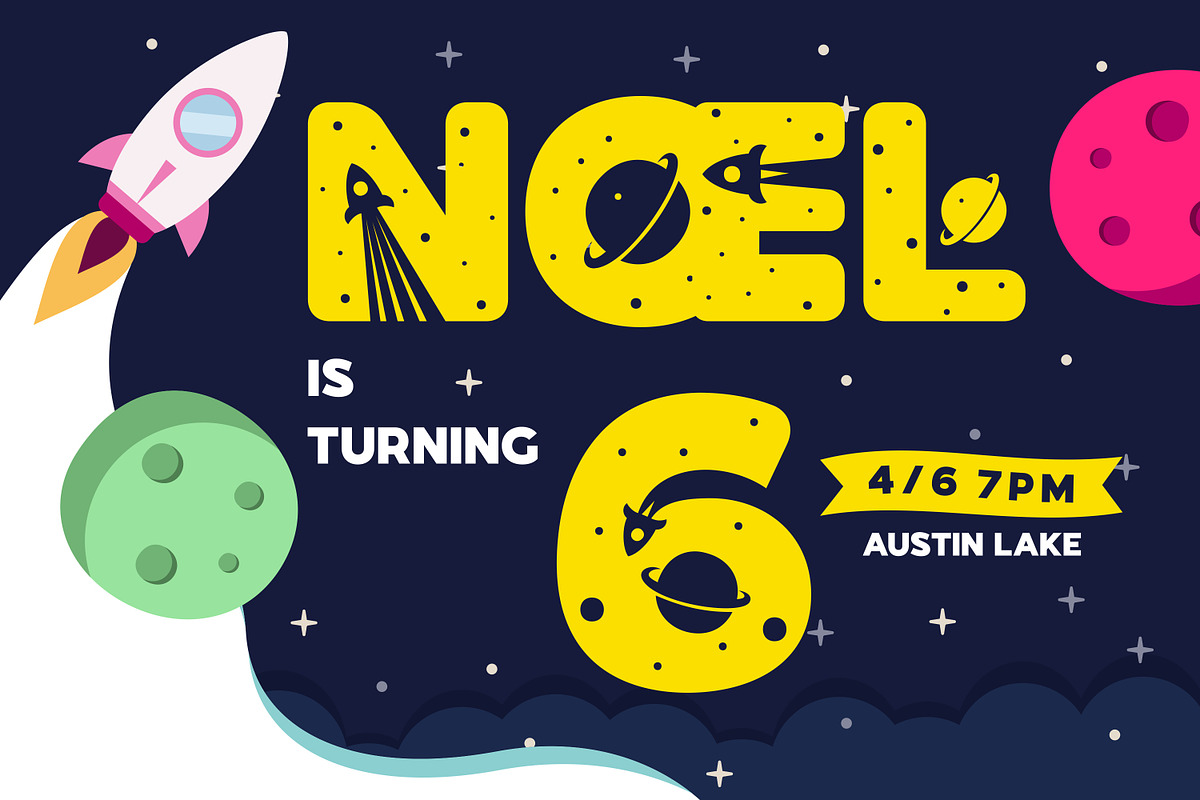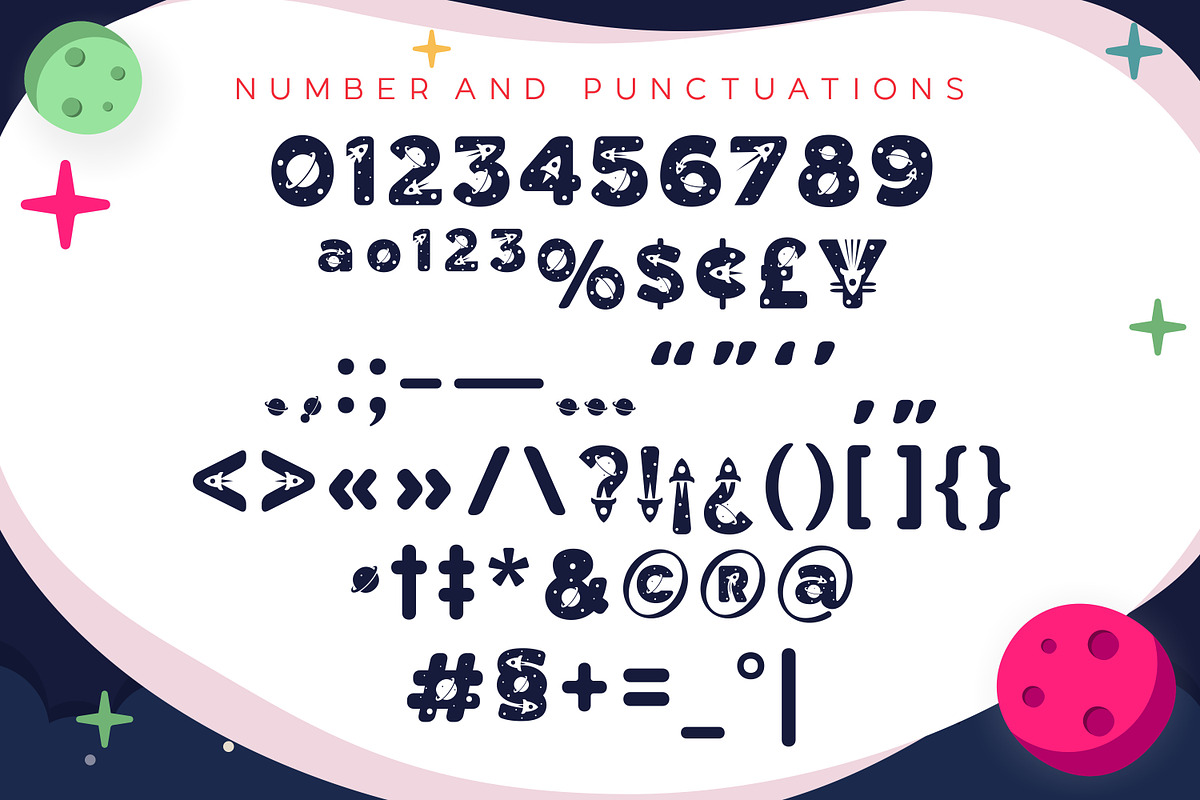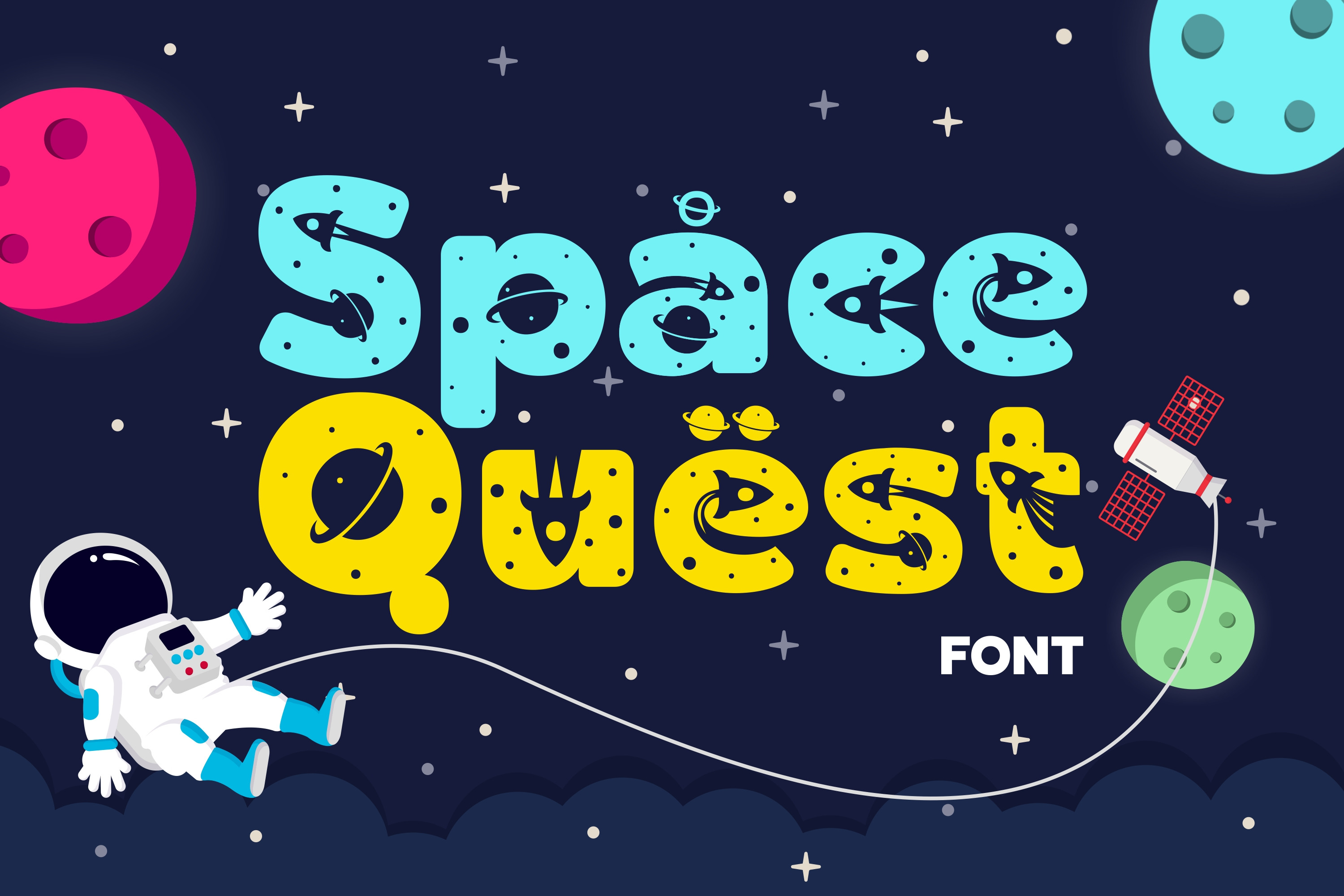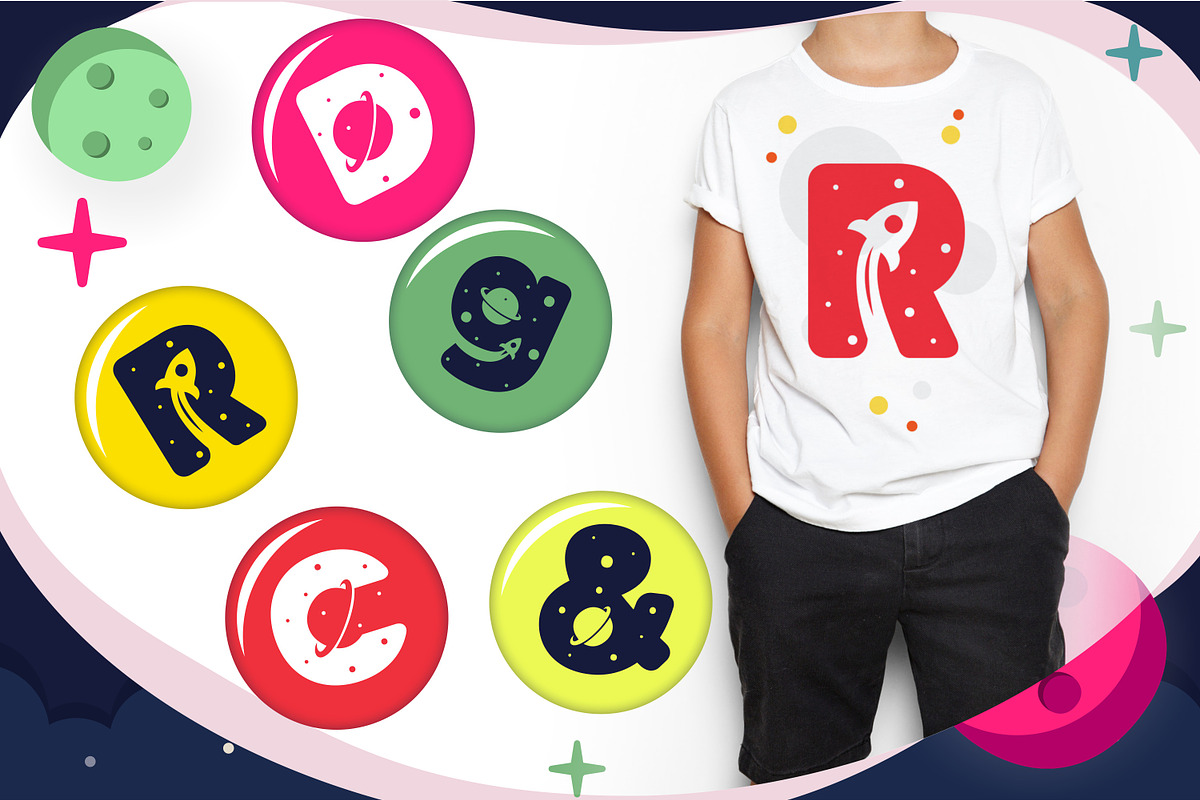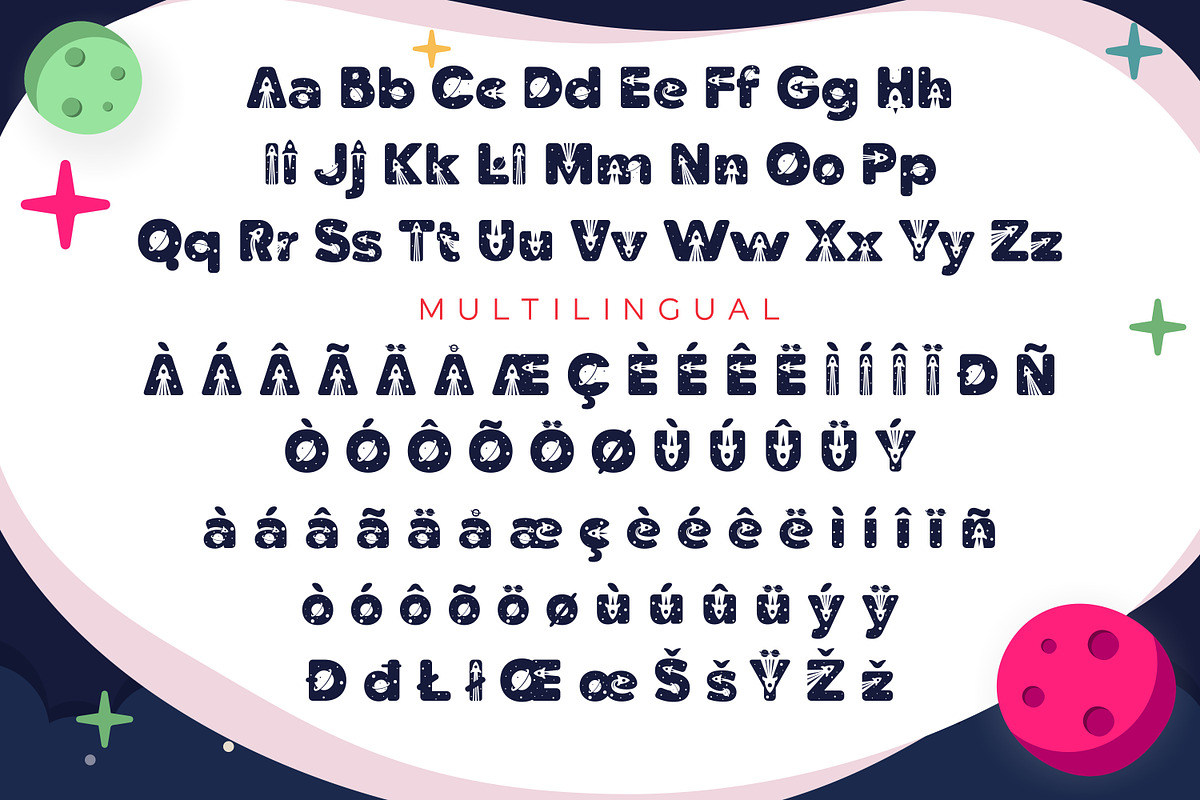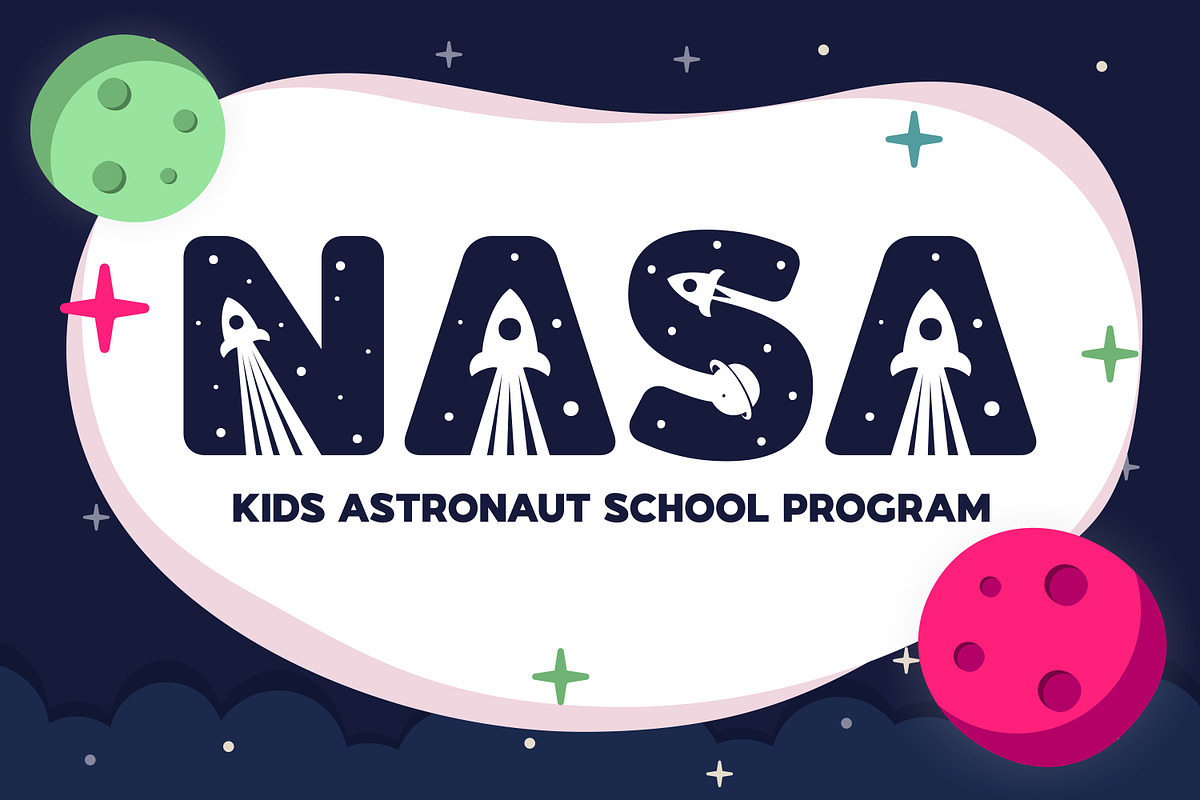
Space Quest - Kids Space Font
Space Quest is an incredibly unique and interesting display font. Its bold and chunky letters make this font adept to a wide variety of designs. Space Quest will turn any creative idea into a true standout!